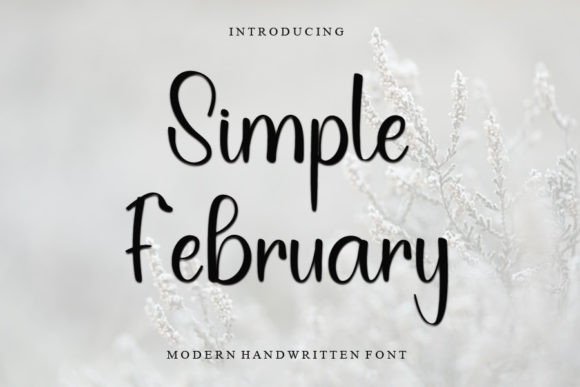
Step into a world of enchanting aesthetics and timeless elegance with Simple February Font. This breathtaking script family embodies the allure of handwritten beauty, captivating hearts with its delicate strokes and graceful curves. Prepare to fall head over heels for its distinctive style, meticulously crafted to elevate your creative projects to new heights.
Unleash your imagination and embrace the versatility of Simple February. Let its alluring characters dance across wedding invitations, adding a touch of romance and charm to your special day. Design captivating logos that exude elegance and sophistication, leaving a lasting impression on your clients. Create eye-catching social media posts that stand out from the crowd, capturing the attention of your audience with its timeless appeal.
Dive into a world of creative possibilities with Simple February. Its effortless flow and charming details make it the perfect choice for crafting heartfelt greeting cards, expressing your love and appreciation through personalized messages. Design stunning posters and flyers that radiate an aura of enchantment, inviting your audience to embark on a captivating journey. Explore the endless possibilities of this versatile font, and let your creativity soar.
With Simple February, you hold the key to unlocking a realm of sophisticated designs. Its refined aesthetic seamlessly complements wedding programs, adding a touch of timeless elegance to your special day. Create enchanting menus that tantalize the senses, inviting your guests to savor every moment of your celebration. Design captivating business cards that exude professionalism and leave a lasting impression on potential clients.
Immerse yourself in the world of Simple February and discover the power of handwritten beauty. This extraordinary font family is your gateway to creating designs that captivate and inspire, leaving an everlasting impact on your audience. Step into the realm of creative excellence and let Simple February be your guiding light.